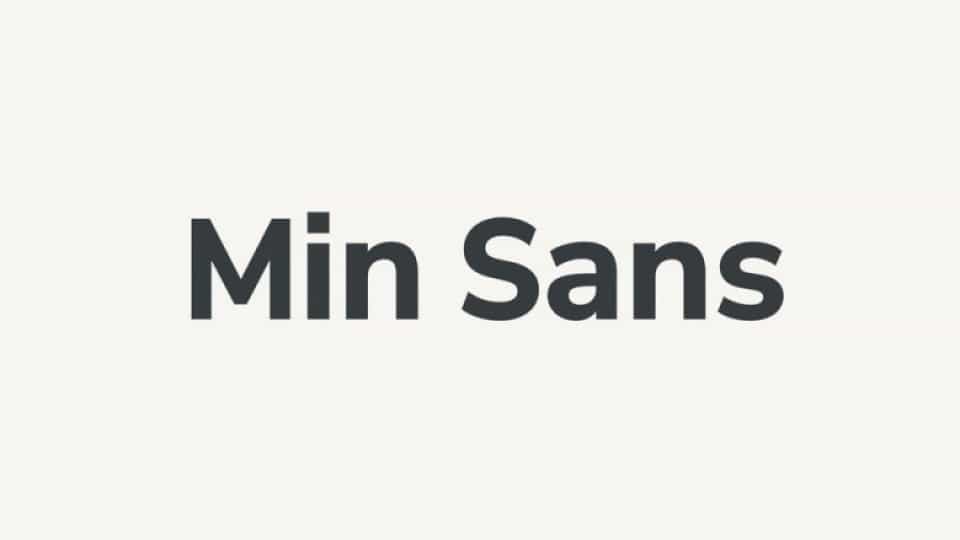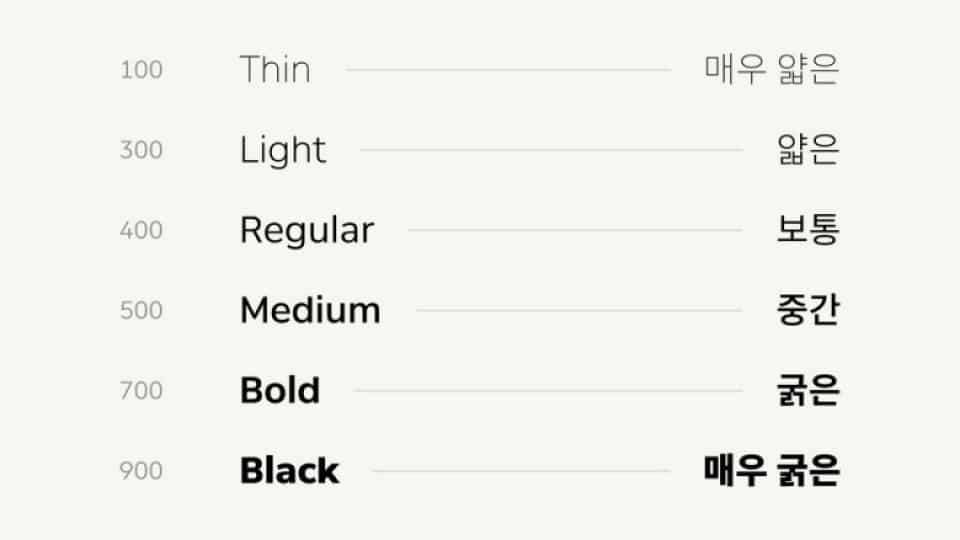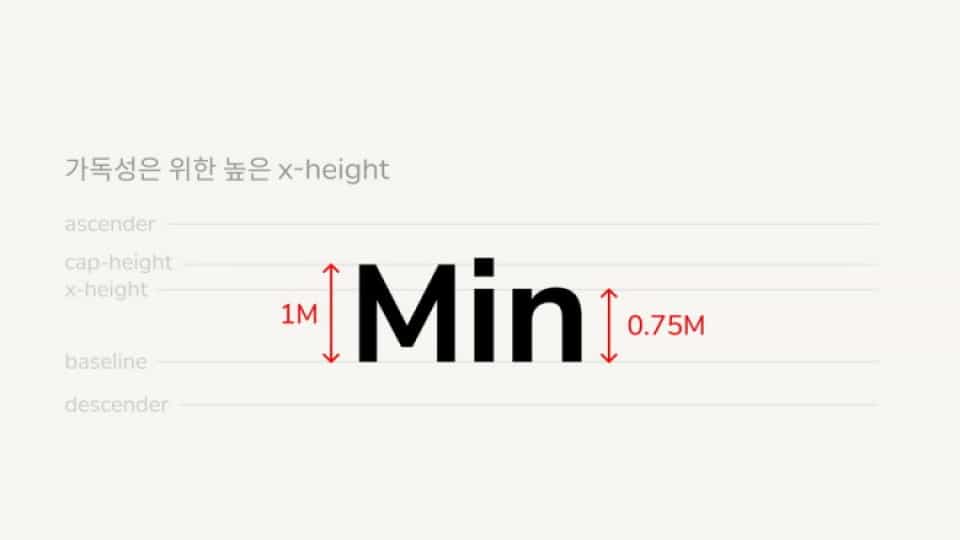
Min Sans is a multilingual typeface designed for optimal compatibility across platforms and languages, featuring CJK characters as well as Latin letters and numbers. Based on Noto Sans and Nunito Sans, Min Sans provides uniform results across platforms.